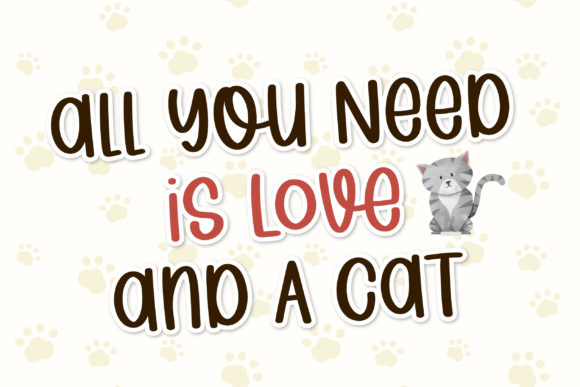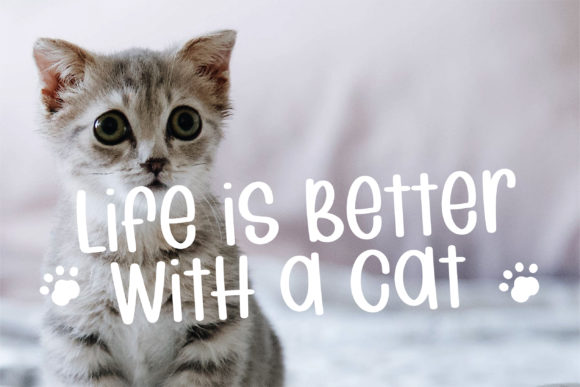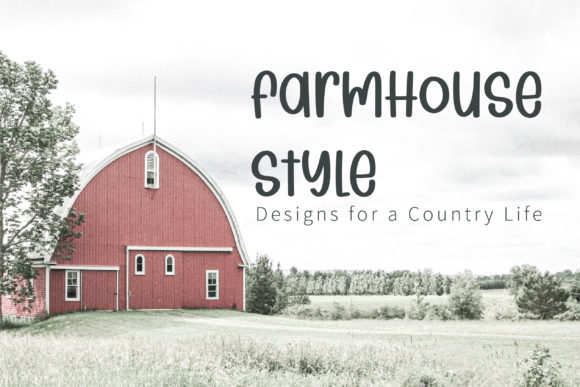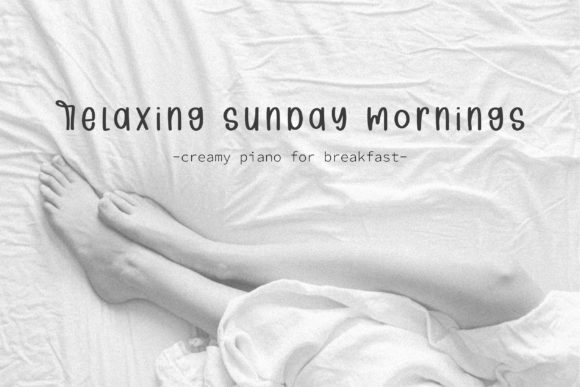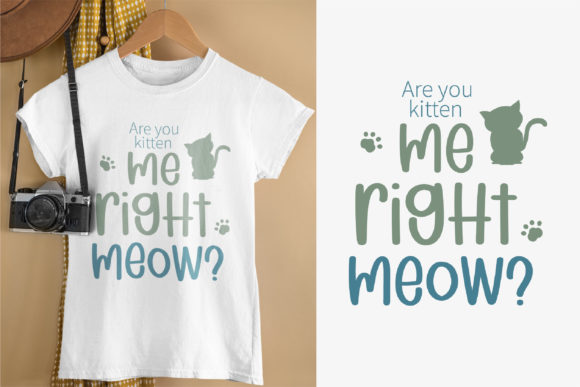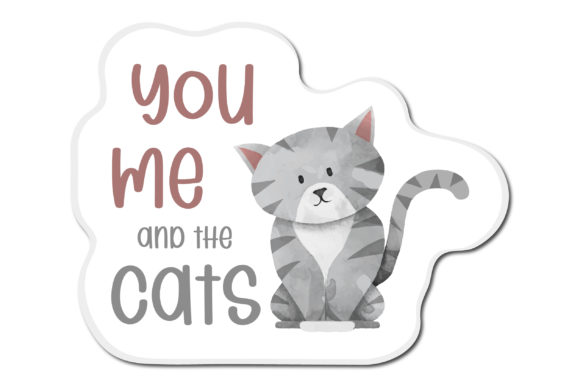
The Purrfect Font: A Deep Dive into Cat Brothers
I’ll never forget the time I was working on a branding project for a cat cafe, and I was struggling to find the right font. The client wanted something playful, yet elegant, and I was coming up blank. That’s when I stumbled upon Cat Brothers, a cute handwritten font that instantly caught my eye. Its natural and unique style made it incredibly fitting for a wide range of designs, and I knew I had found the perfect match.
So, what makes Cat Brothers so special? Let’s dive into the good stuff! 😊
- ✨ Unique and playful style: Cat Brothers has a one-of-a-kind look that’s sure to make your designs stand out.
- ✅ Easily readable: Despite its playful nature, the font is surprisingly easy to read, even at smaller sizes.
- 💫 Versatile: Cat Brothers works beautifully for logos, branding, quotes, and more.
Of course, no font is perfect, and Cat Brothers has a few minor quirks:
- 🤔 Limited formal applications: While Cat Brothers is amazing for informal designs, it might not be the best choice for more formal or corporate projects.
- ⚠️ Occasional kerning issues: As with any font, you might encounter some kerning issues, especially when using all caps or large text sizes.
One of the best things about Cat Brothers is its OpenType features and glyphs. These allow you to add more personality and variety to your designs. For example, you can use:
- Stylistic alternates: Swap out letters for alternate versions, adding more visual interest to your text.
- Glyphs: Access special characters, such as ligatures and ornaments, to add a touch of whimsy to your design.
The Story Behind Cat Brothers
Legend has it that Cat Brothers was created by a designer who wanted to capture the playful spirit of their mischievous feline friends. With its unique blend of elegance and whimsy, it’s no wonder this font has become a favorite among designers and crafters.